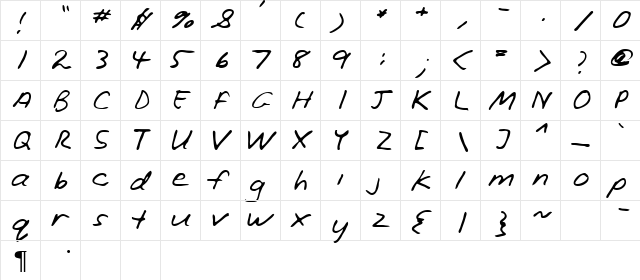
Hadrian Regular
Design Context for Hadrian Typeface
Hadrian is a composed and adaptable typeface that performs quietly and consistently across a wide range of design contexts.